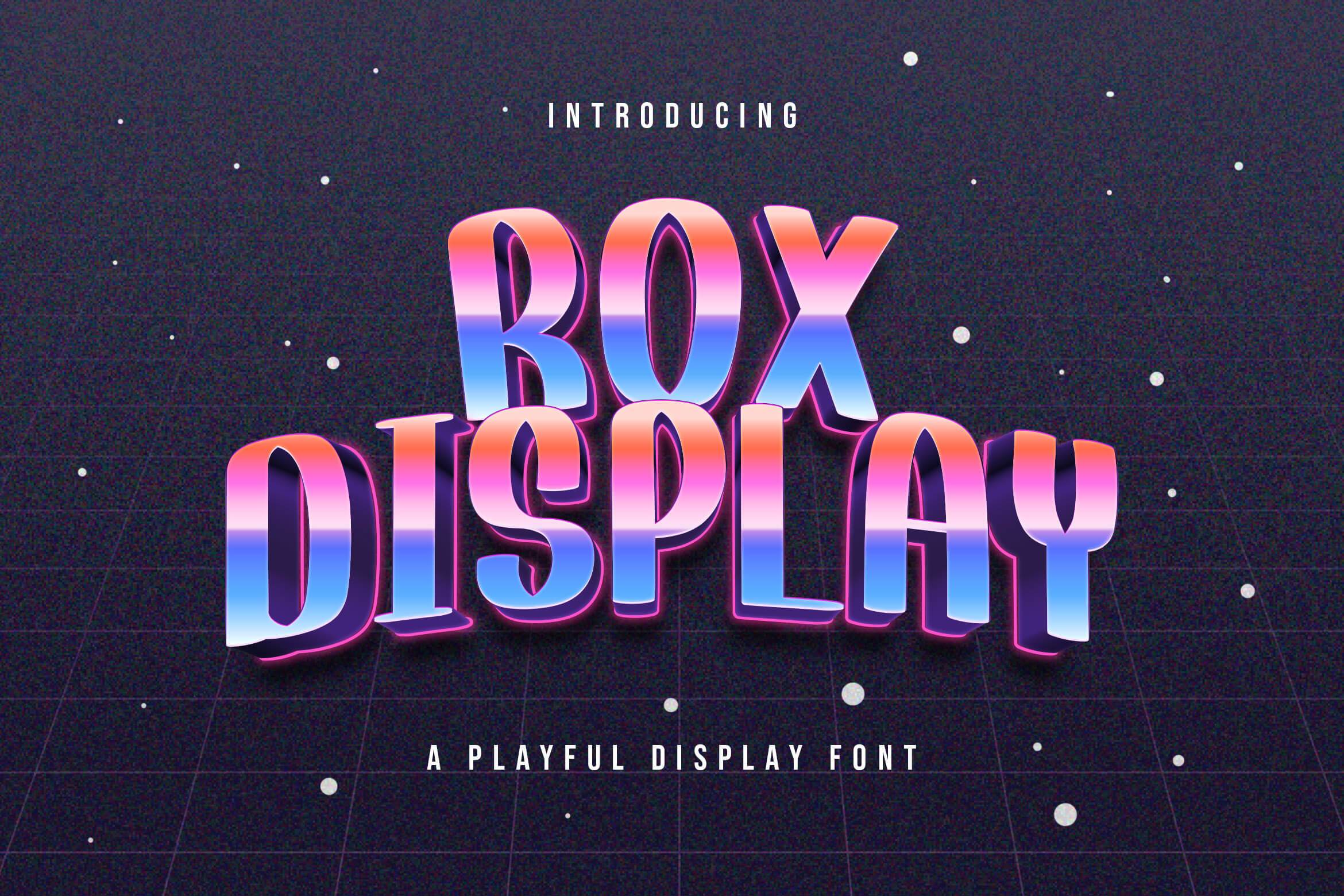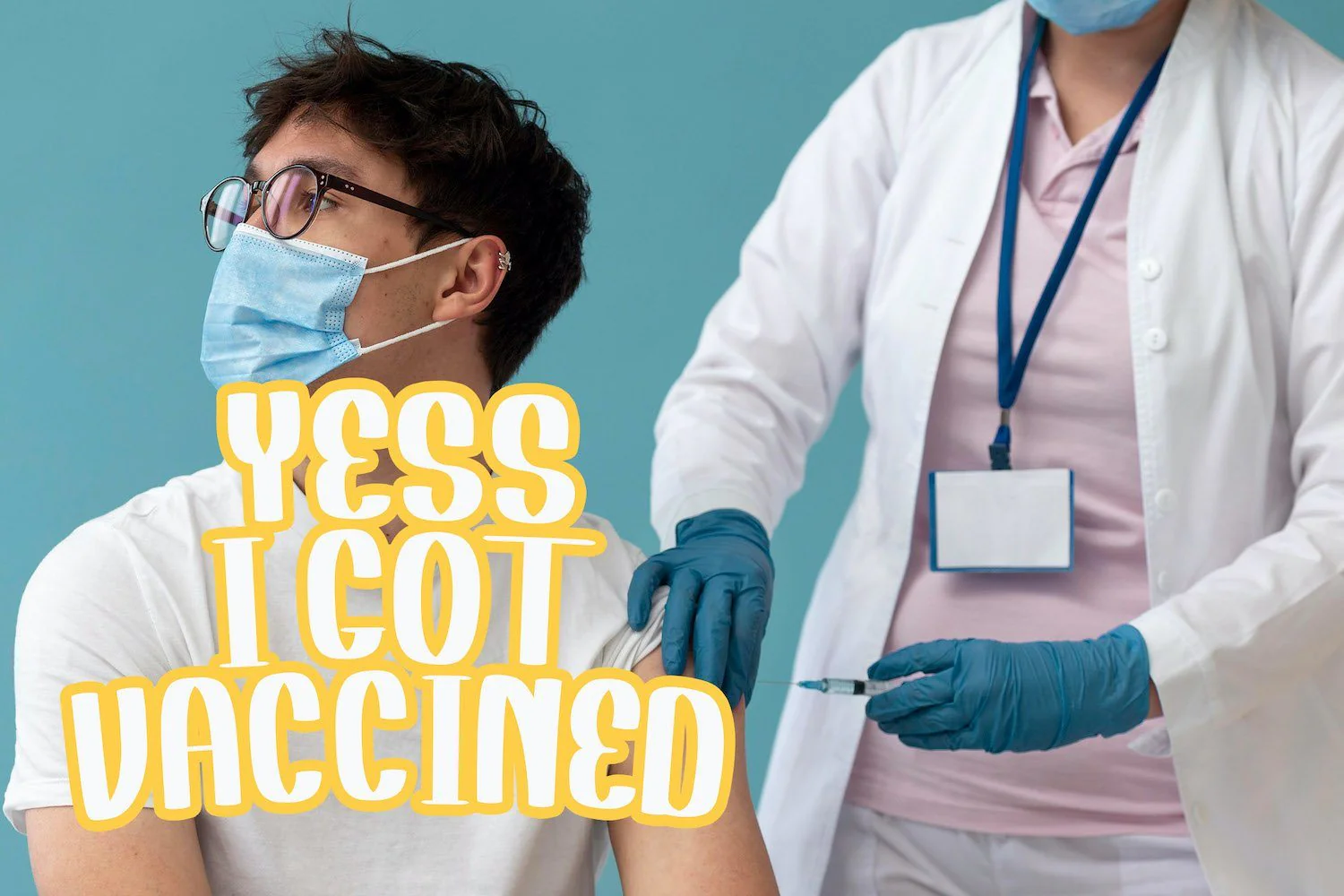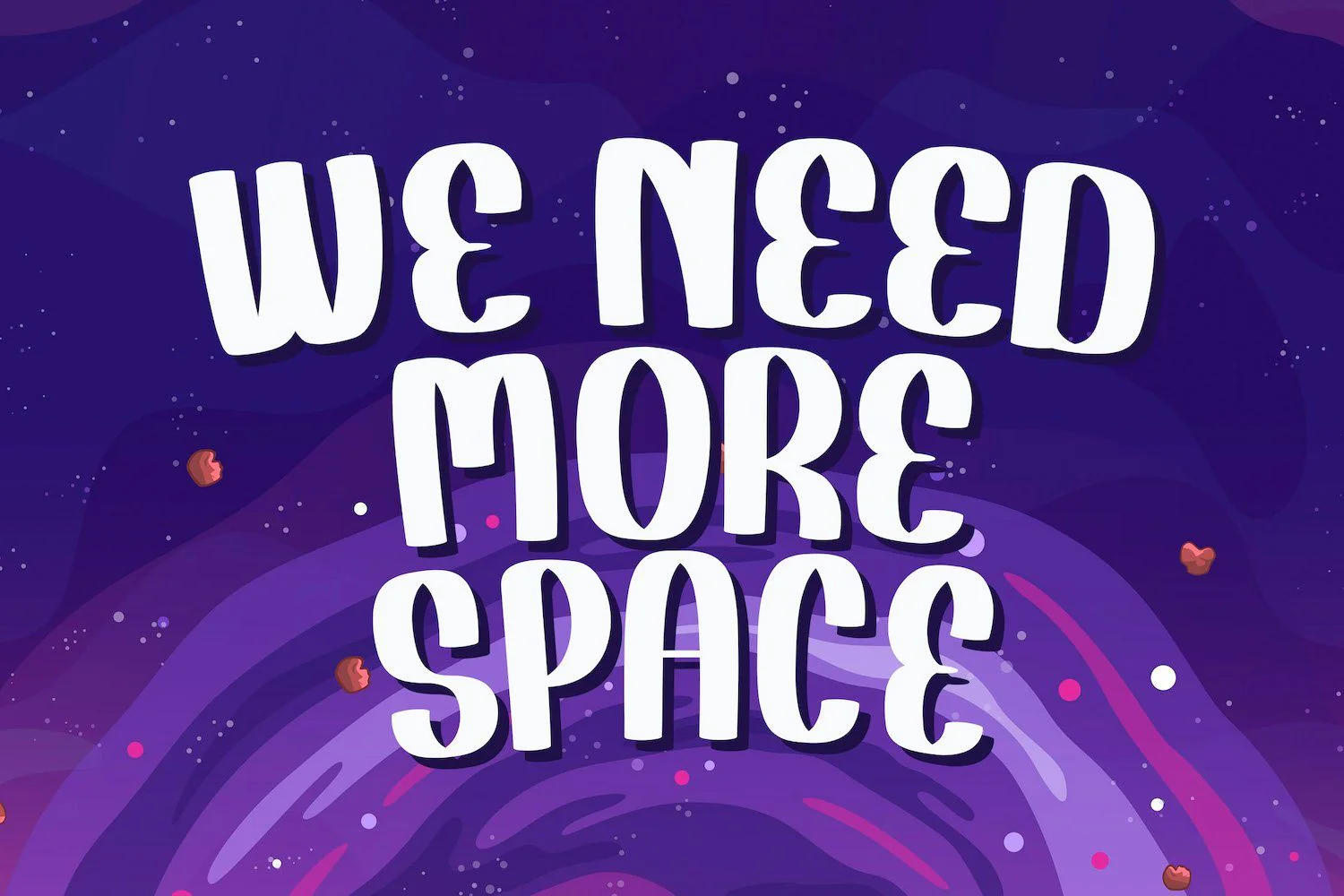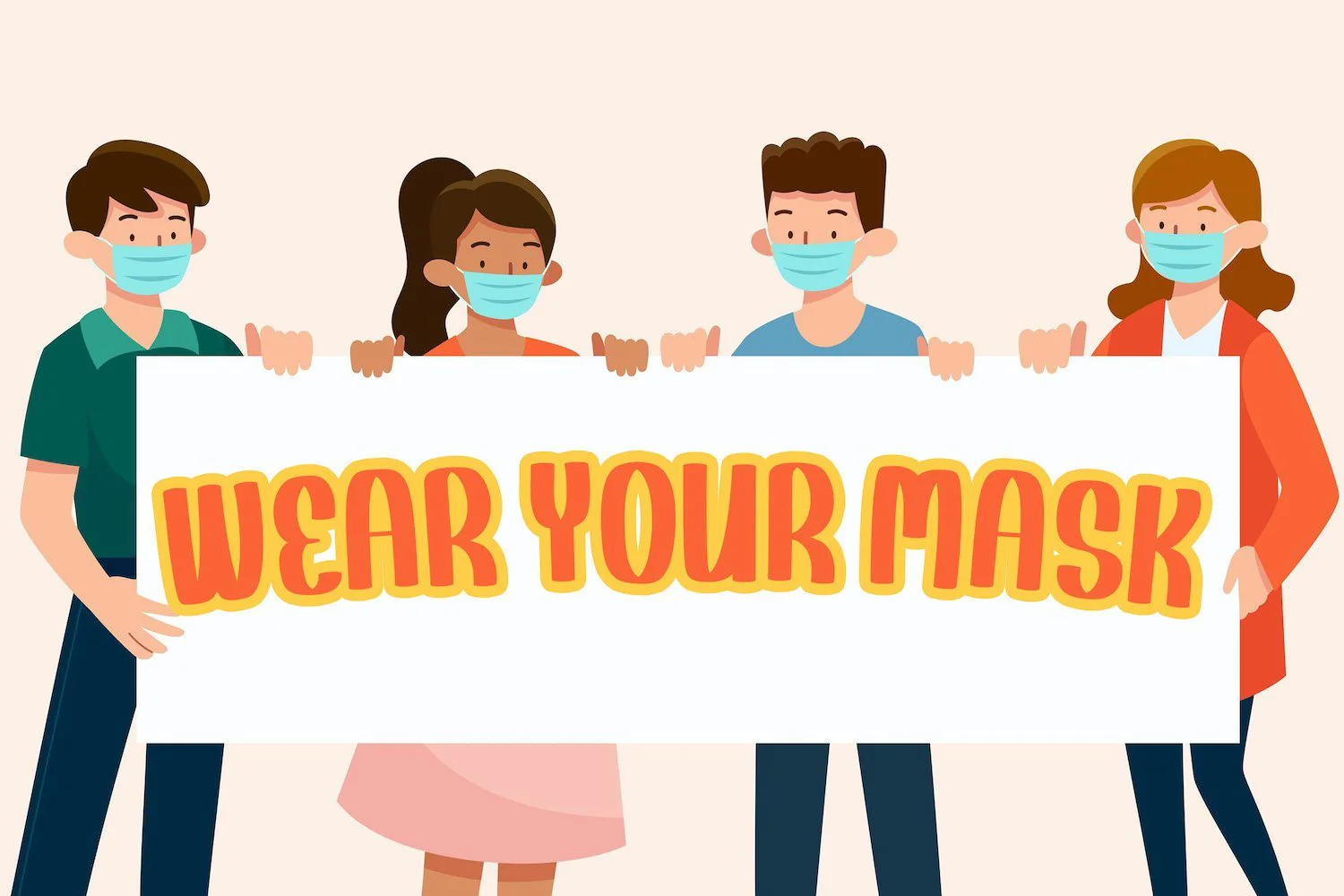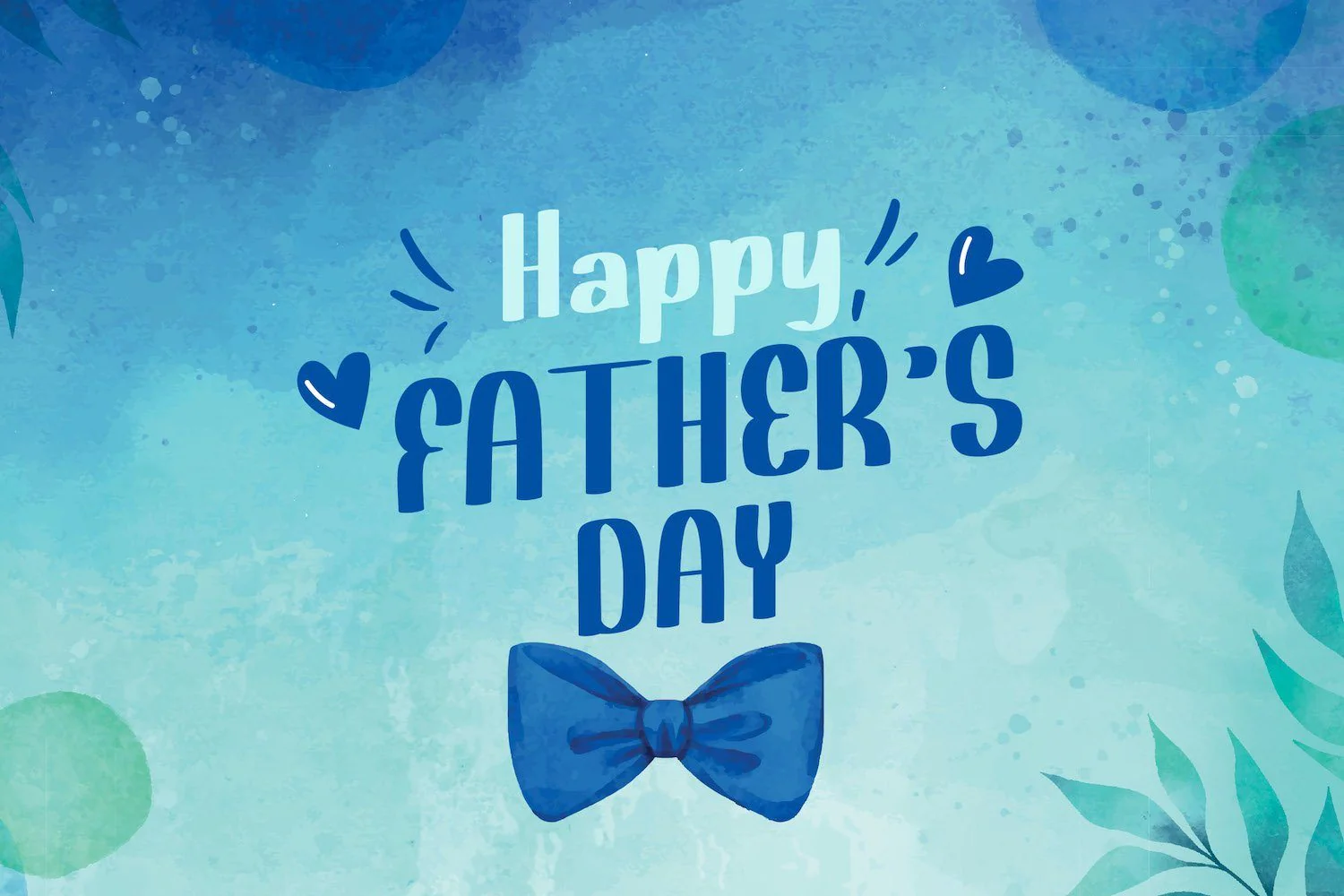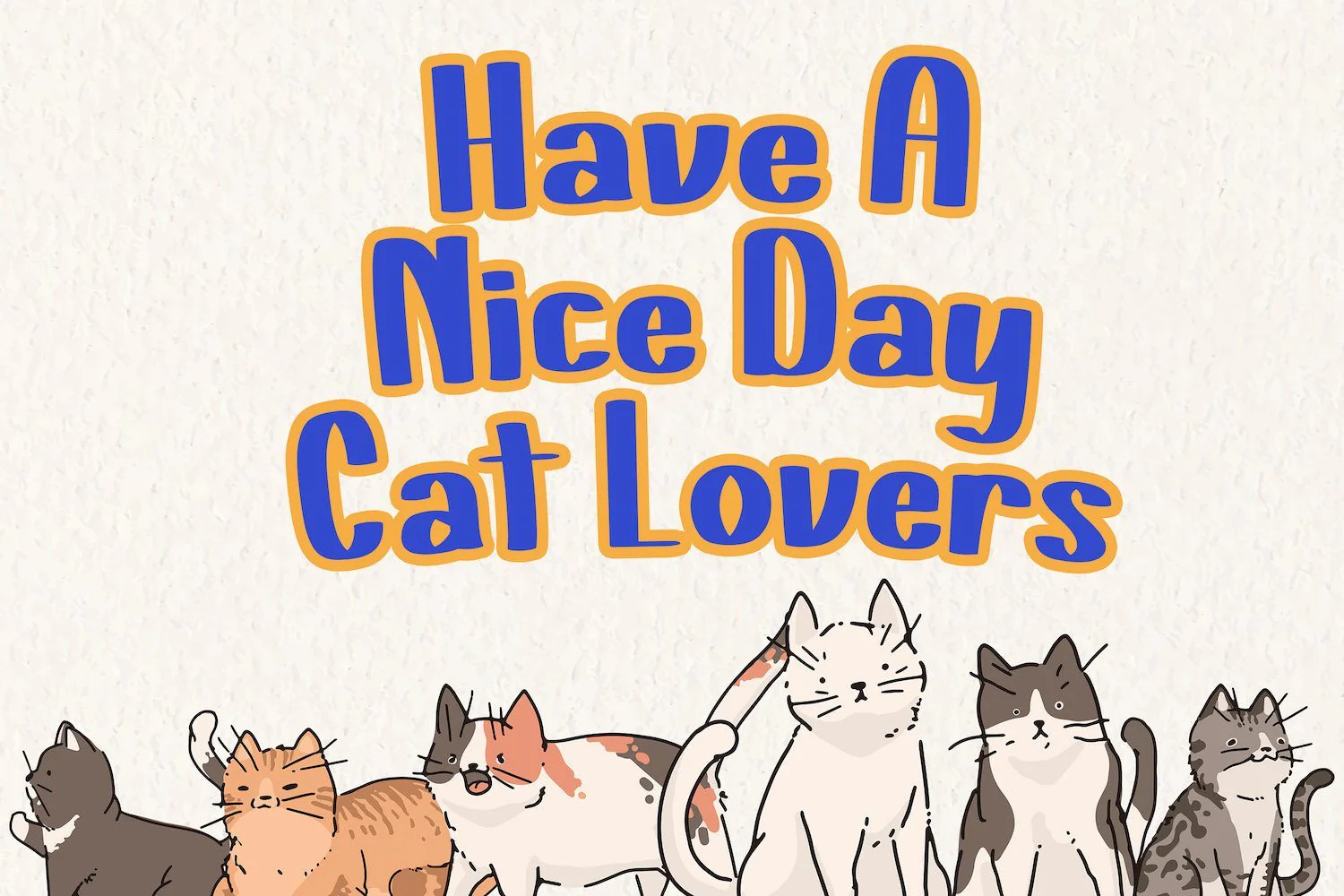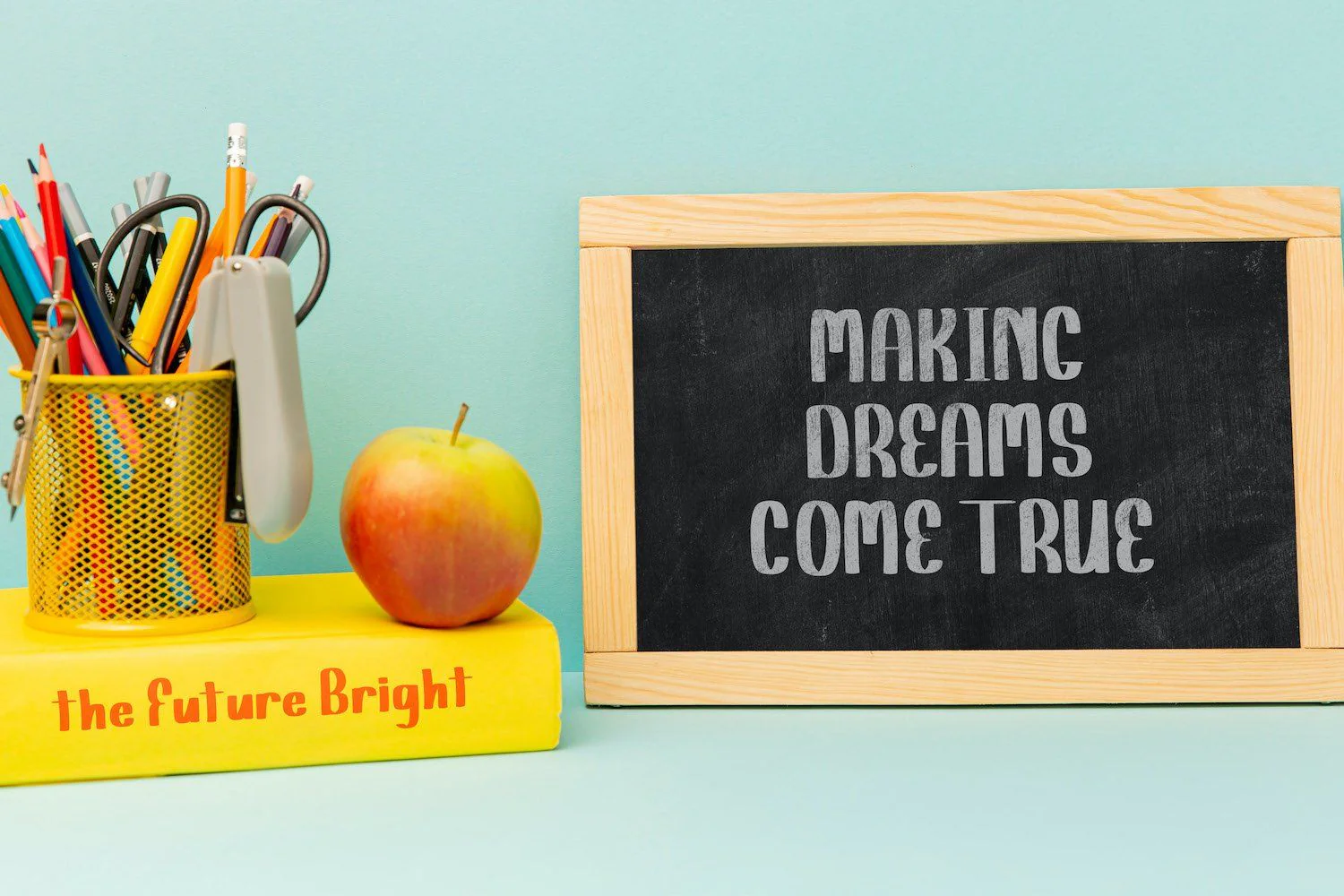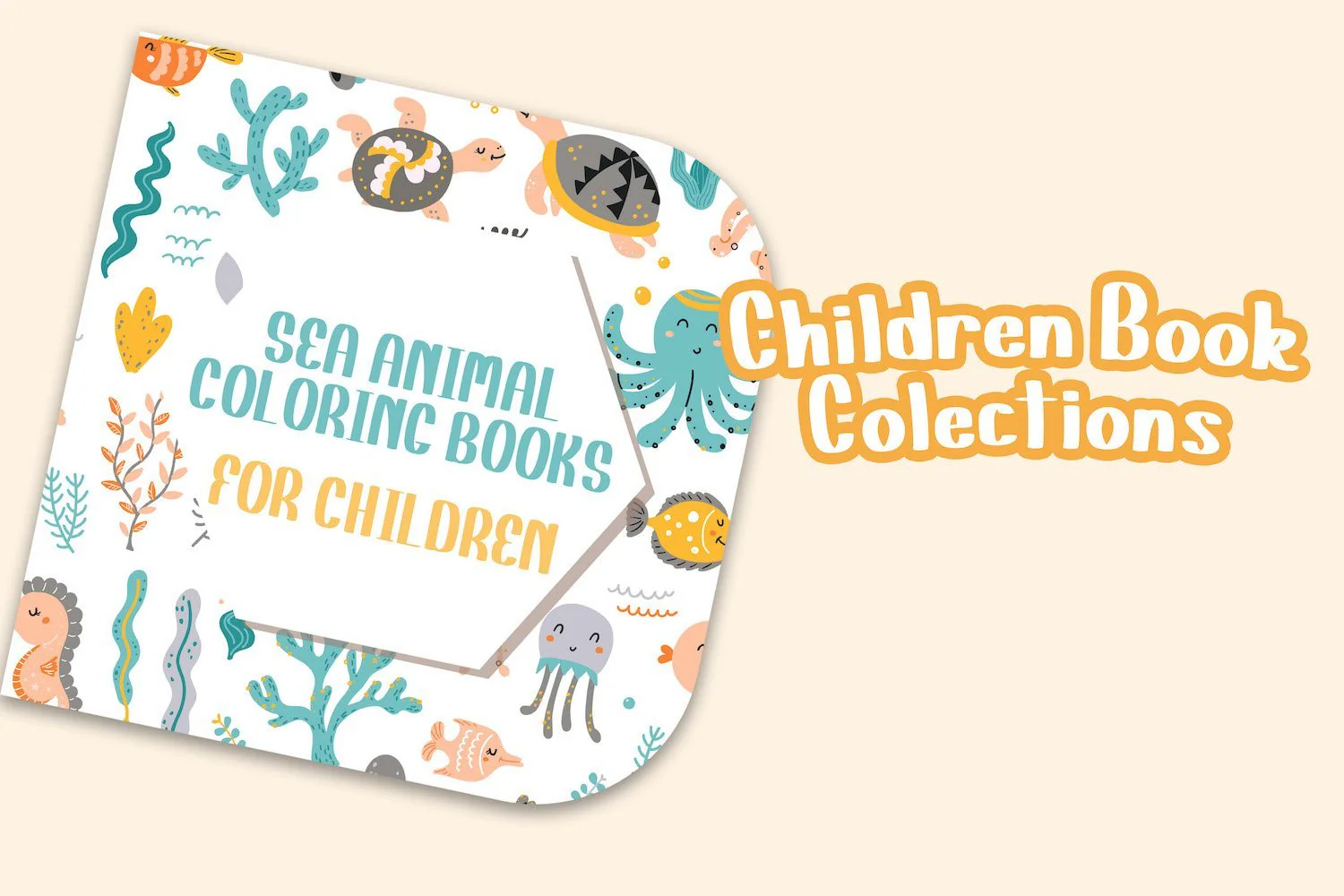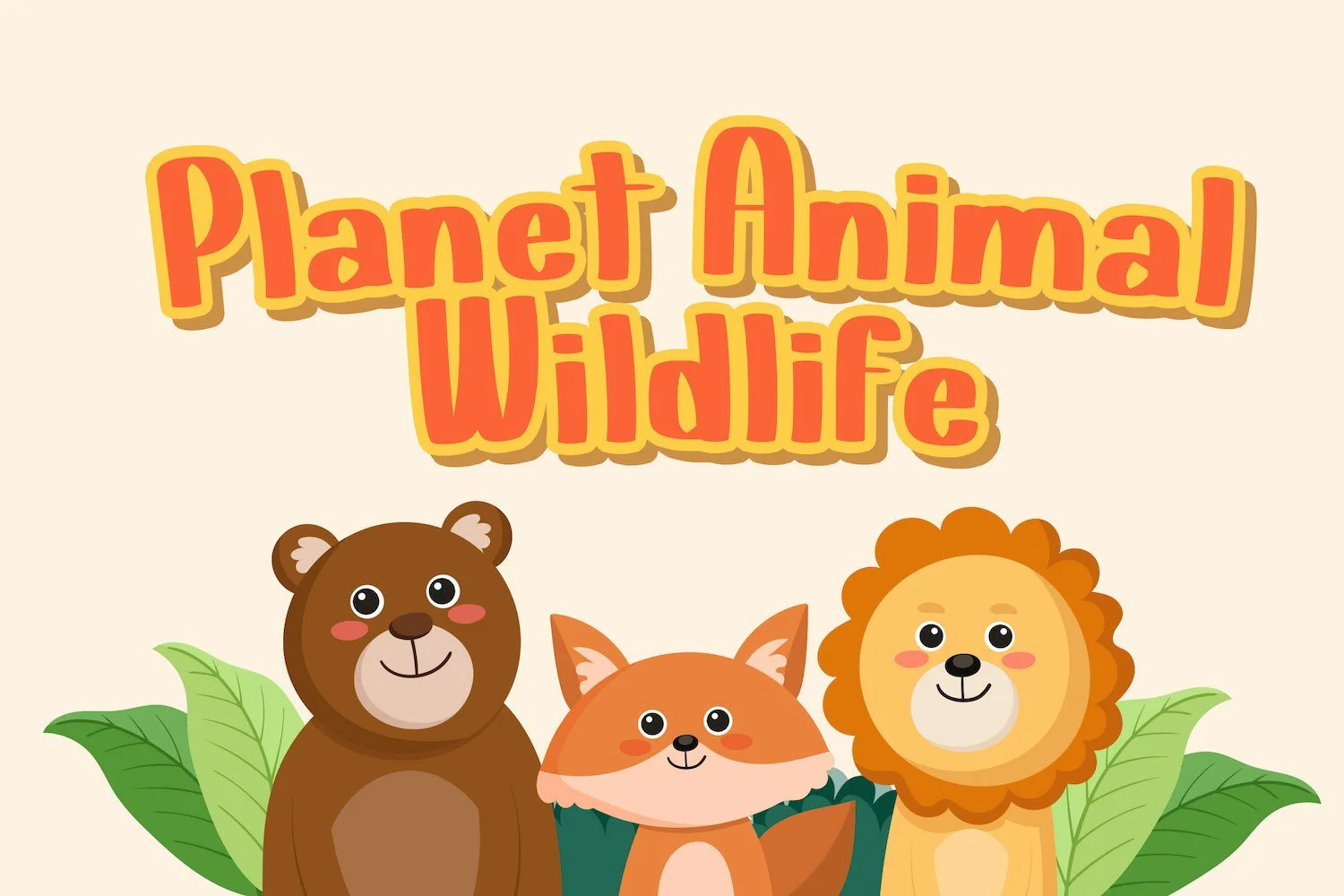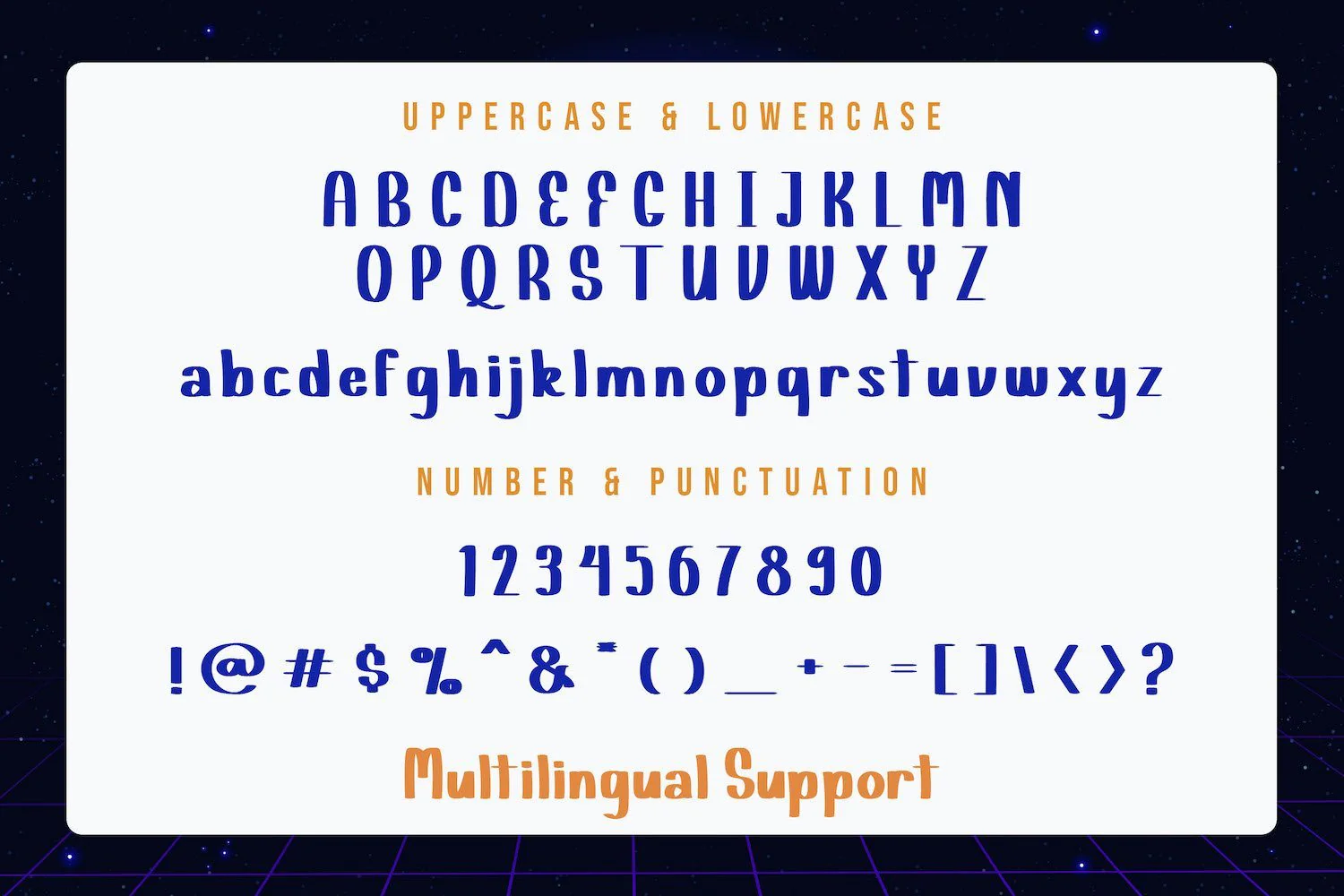
Rox Display - Playful Display Font
Introducing Rox Display - Playful Display Font
Rox Display is a fun display font. Playful and fresh, this font will be a hit for each of your children or school projects!
Introducing Rox Display - Playful Display Font
Rox Display is a fun display font. Playful and fresh, this font will be a hit for each of your children or school projects!